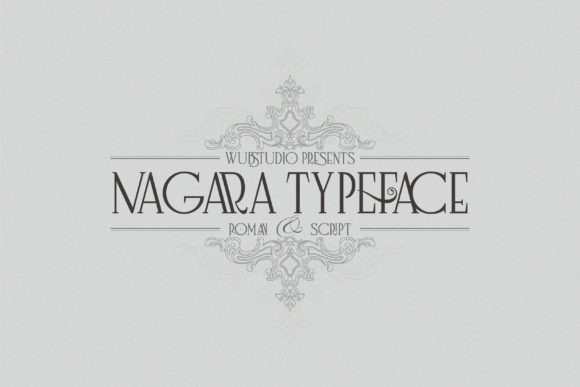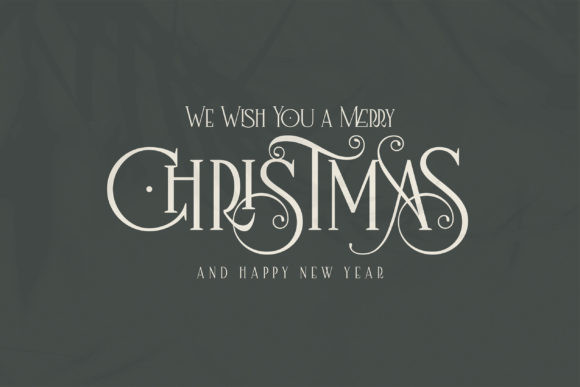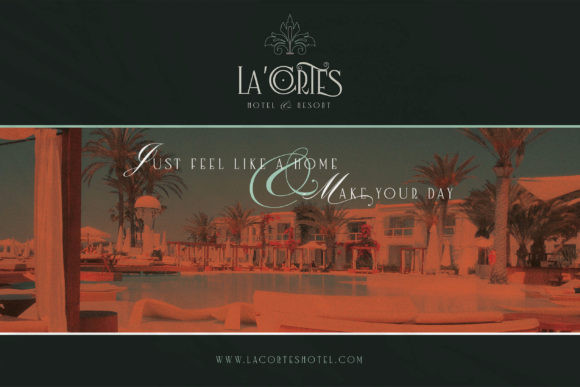
Nagara Font
Nagara is an elegant and classic duo font (serif and script). No matter the topic, this font will be an incredibly asset to your fonts’ library, as it has the potential to elevate any creation.